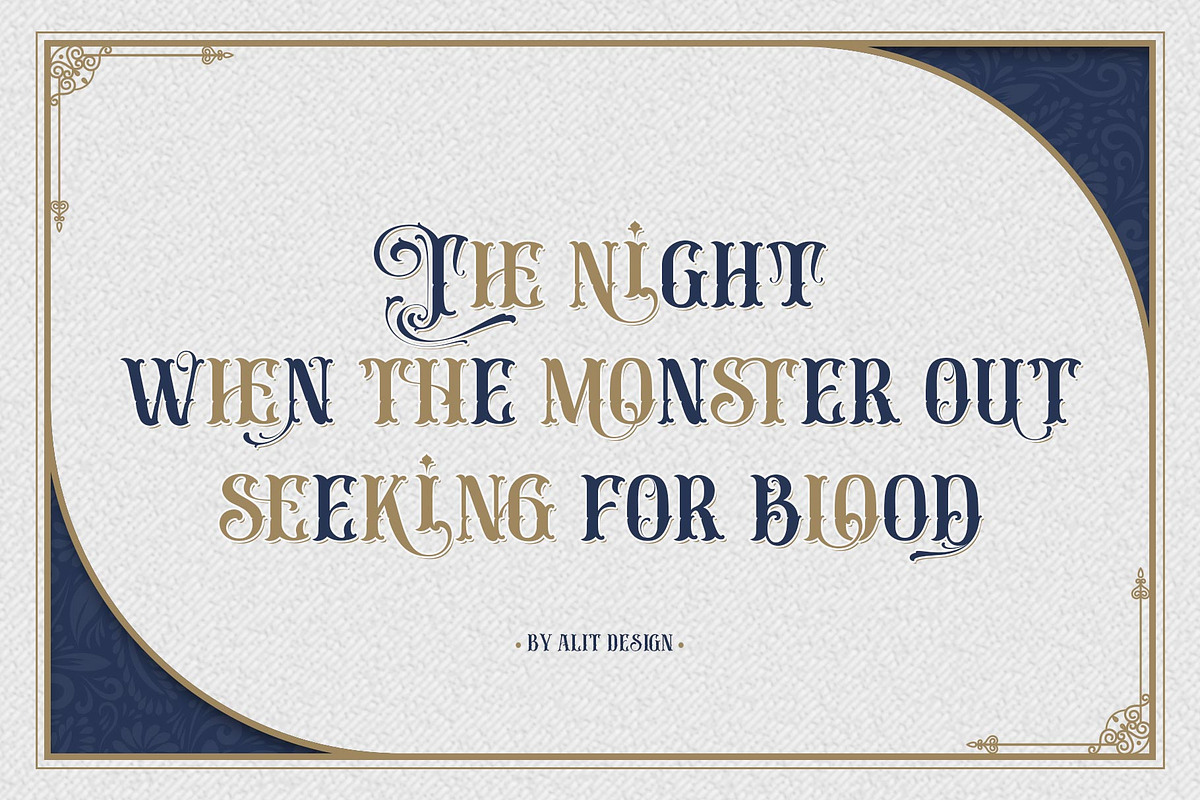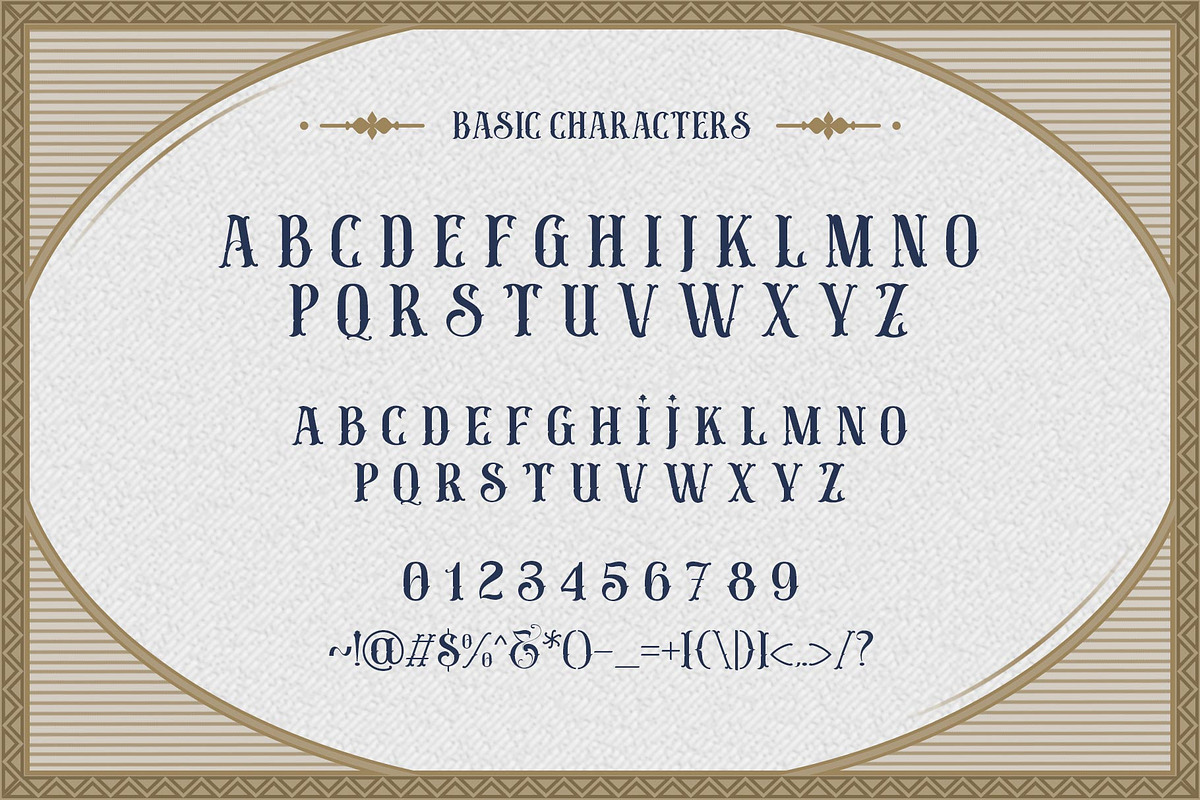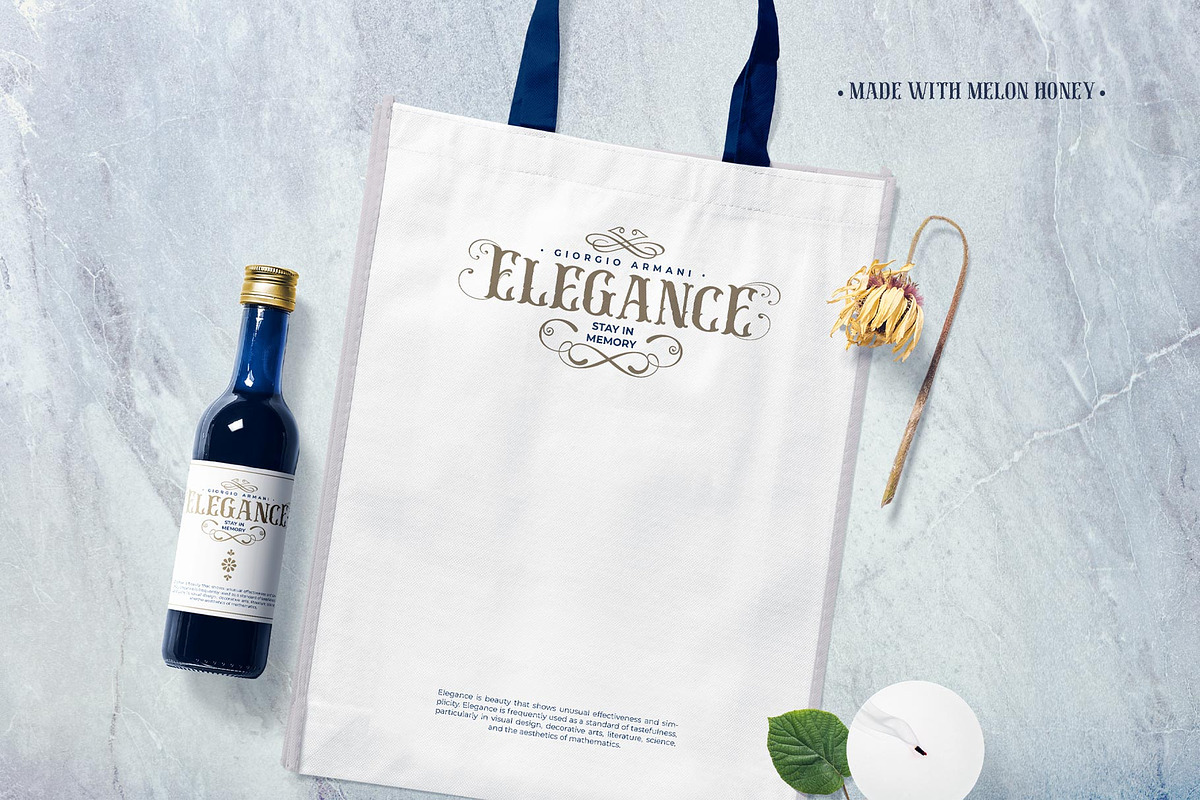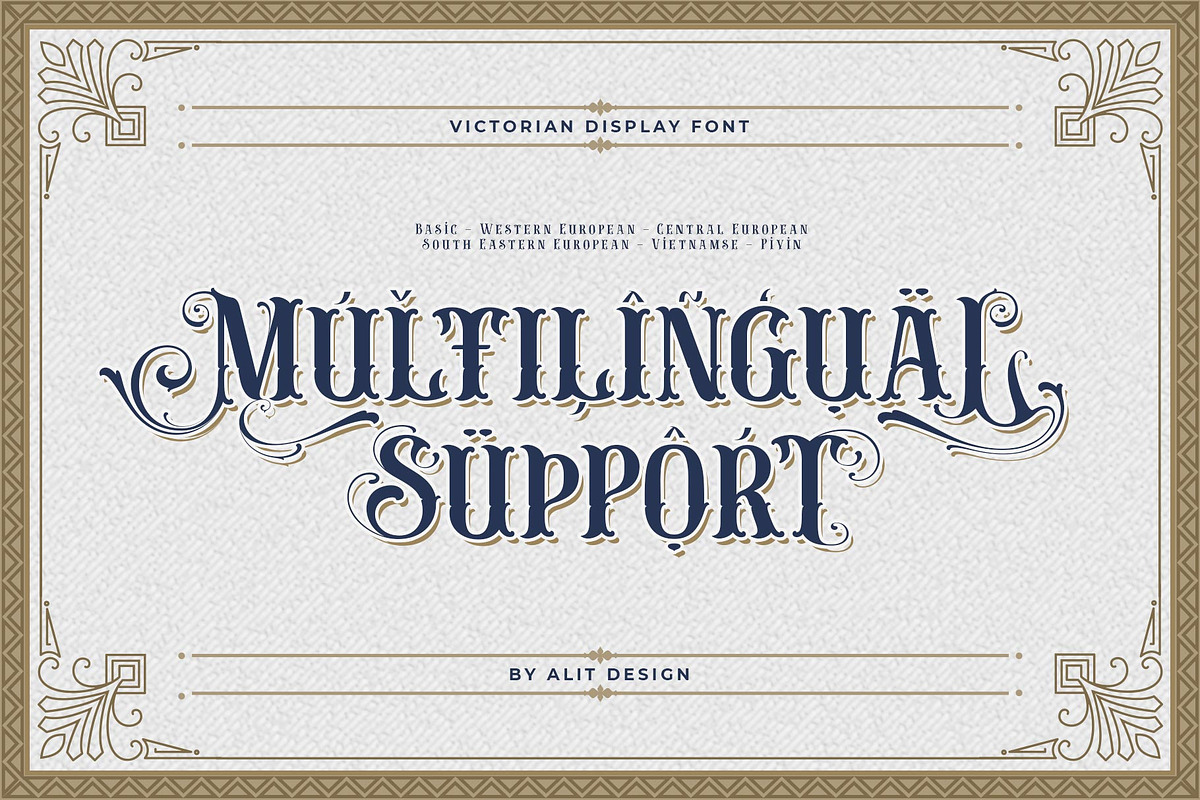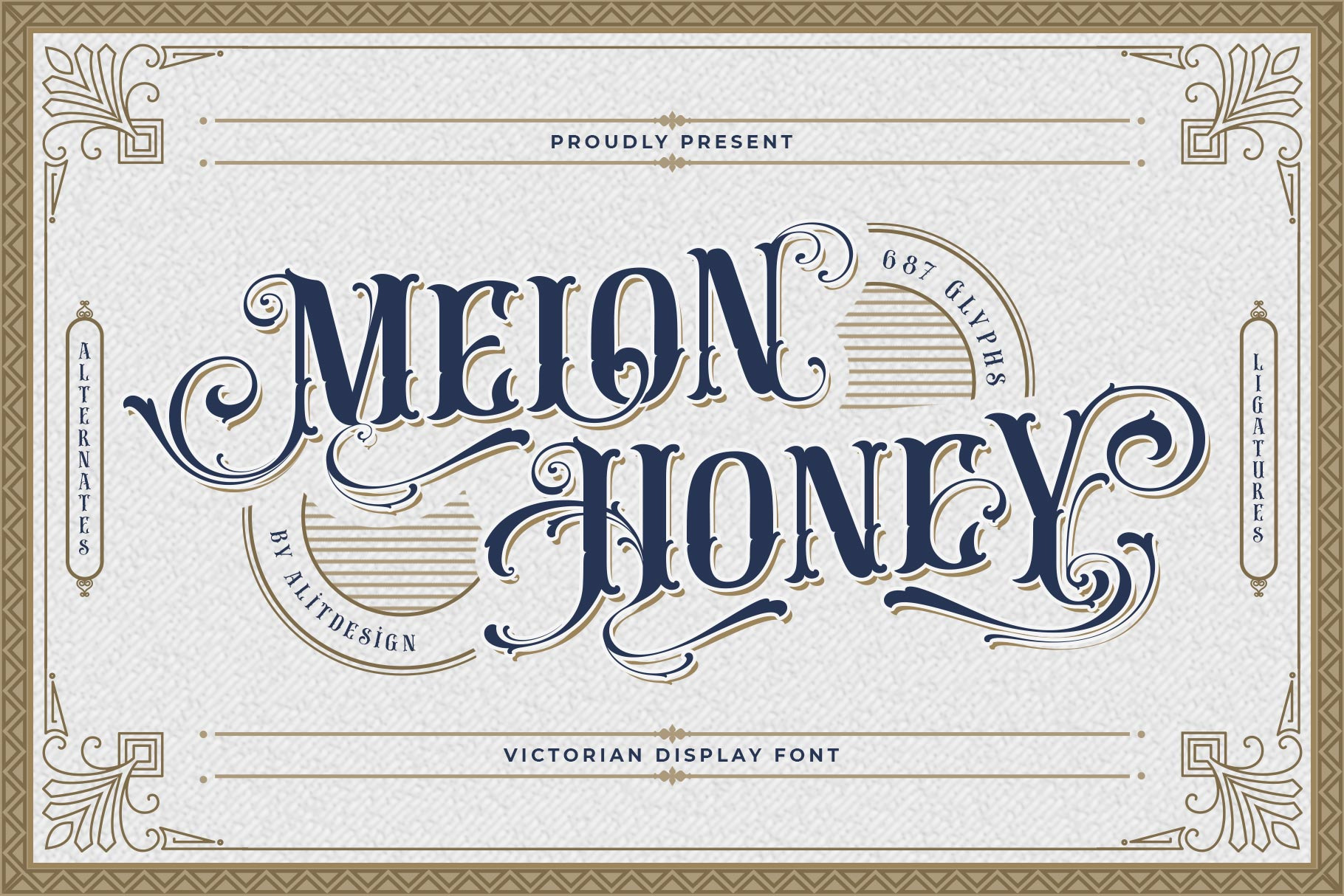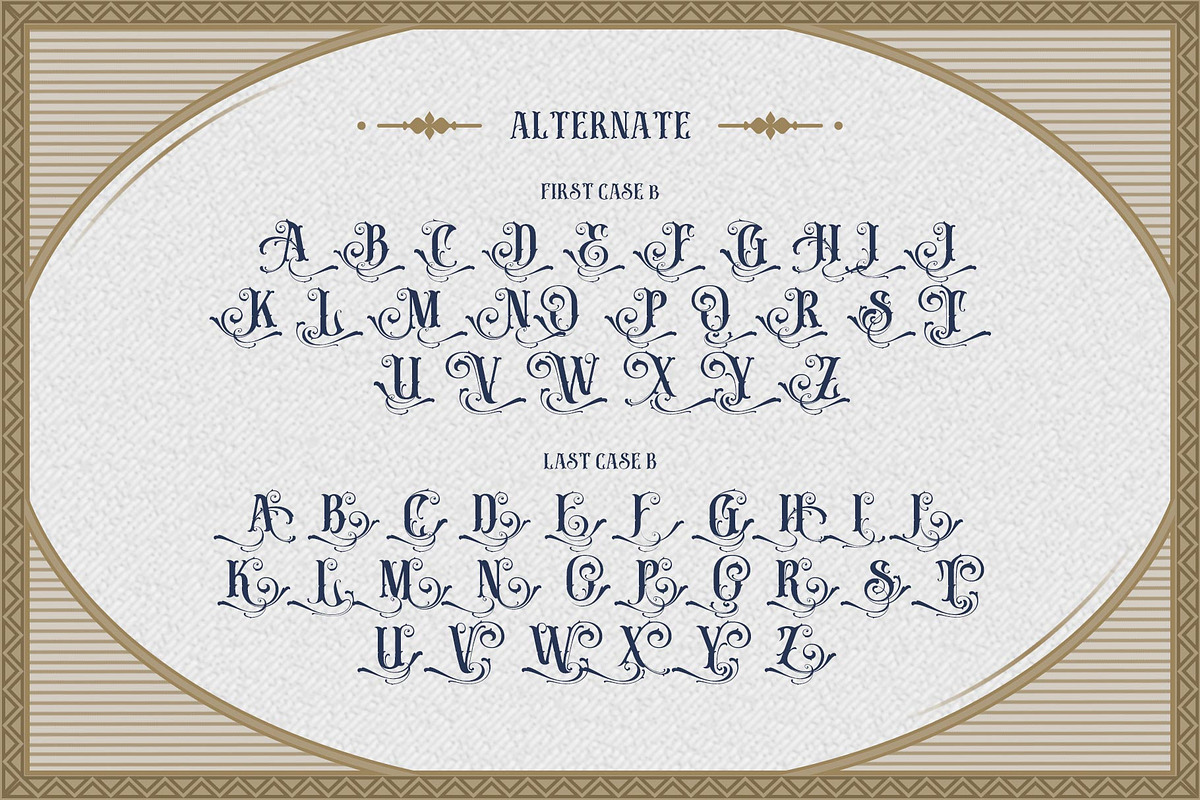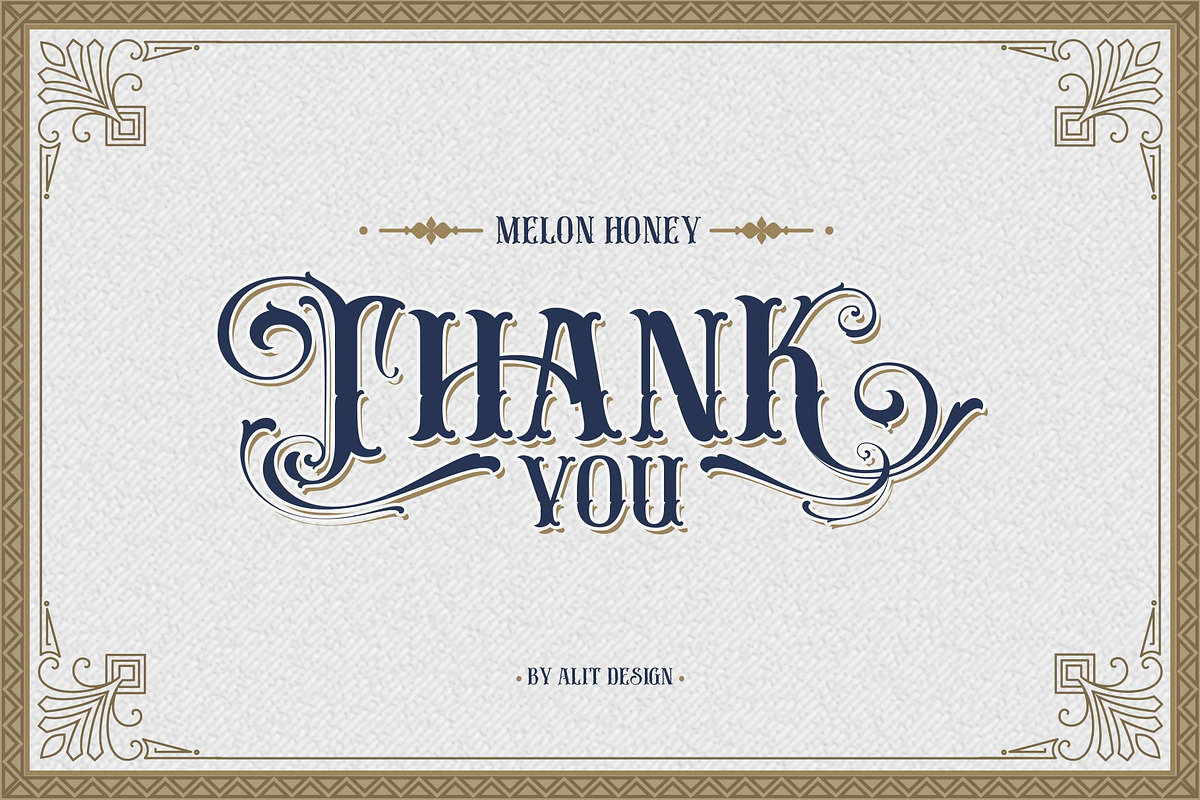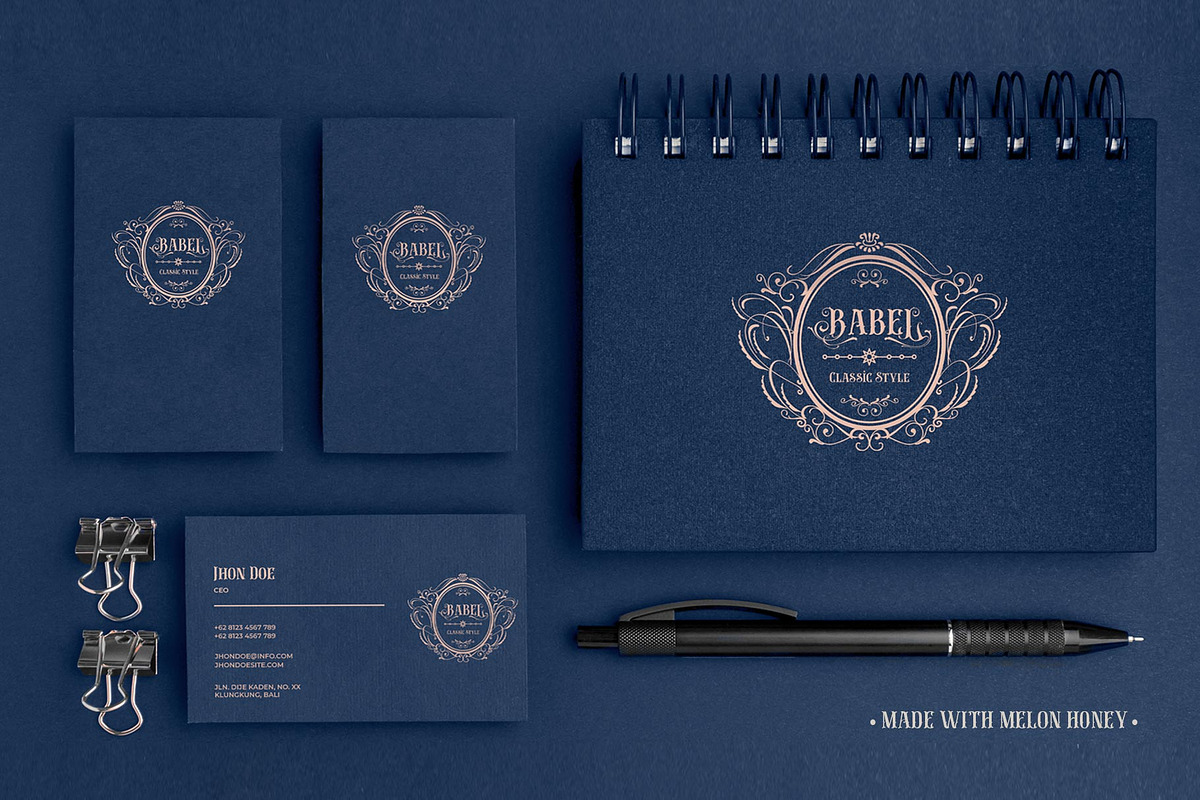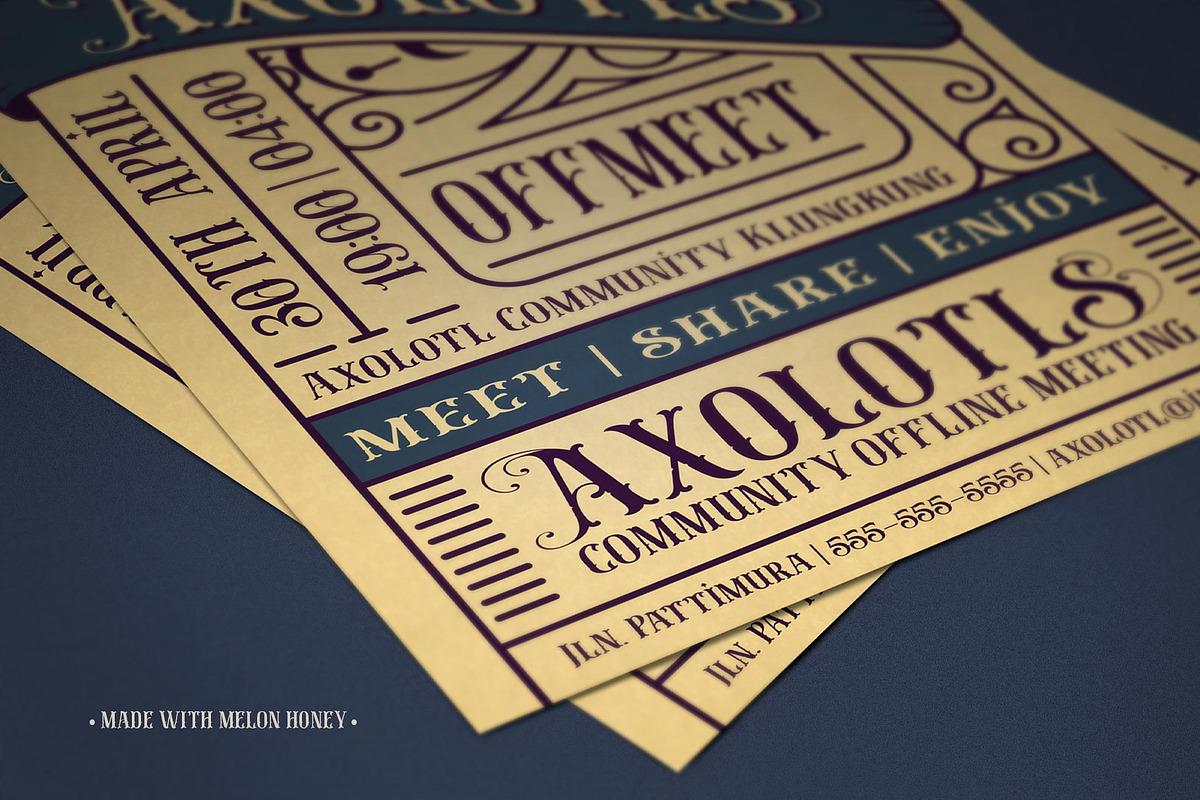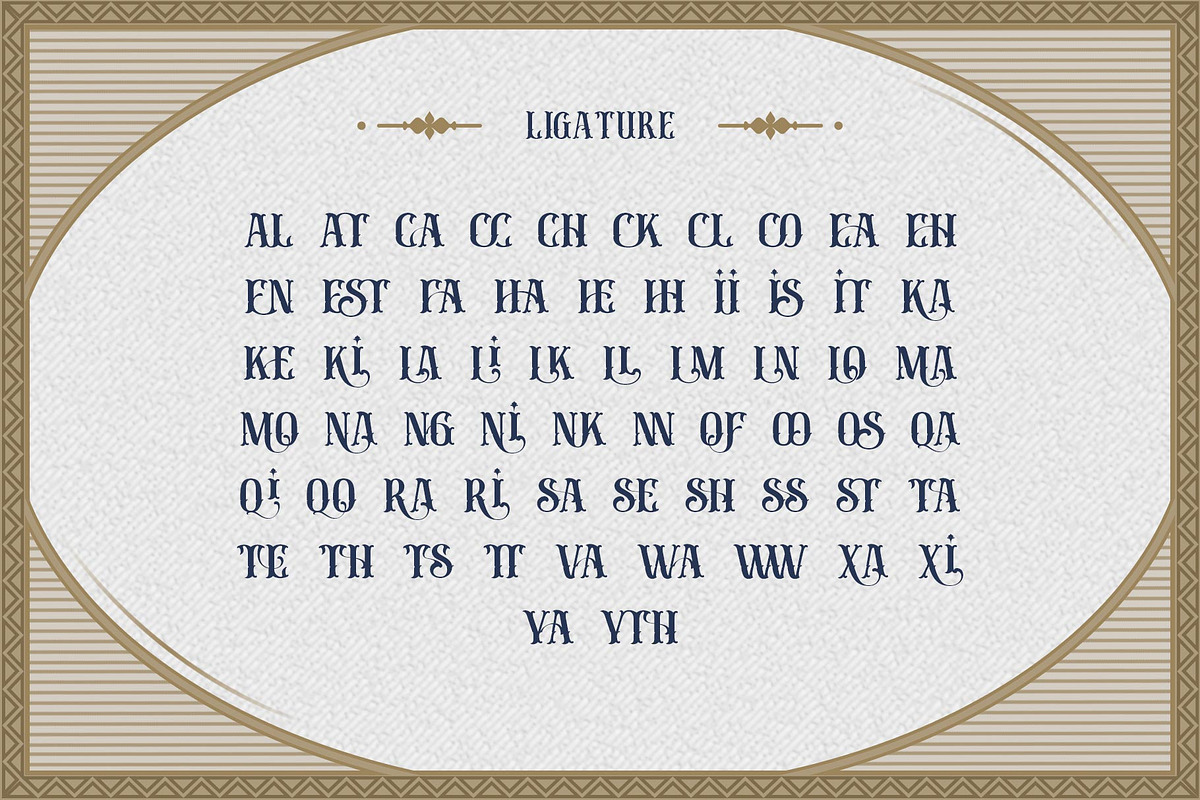
Melon Honey Typeface
Introducing Melon Honey Typeface
Melon Honey Typeface is inspired by the classic victorian font style combined with western style which makes the Melon Honey font look cool and unique. This font is perfect for a bold and vintage Victorian concept design.
Can be used for the design of alcoholic beverage packaging, pomade designs, barbershops and so on with the Victorian classic concept.